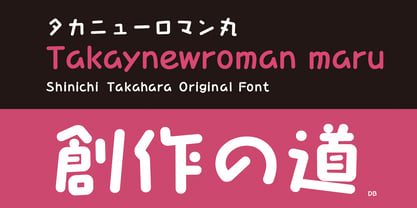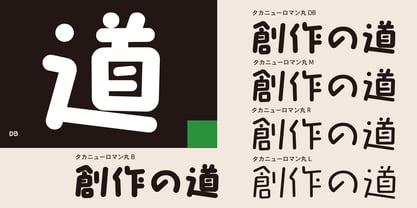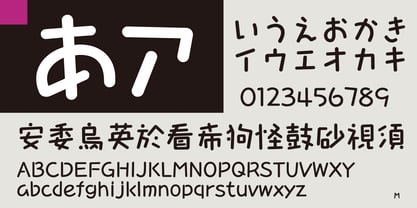
Takanewroman-maru
by Taka Design Production
The Takanewroman-maru Font Family was designed by and published by Taka Design Production. Takanewroman-maru contains 5 styles and family package options. More about this family
This is a round version of Takanewroman. The bouncing letters are full of dynamism, and the balance of the circle is cute, gentle, and full of warmth.